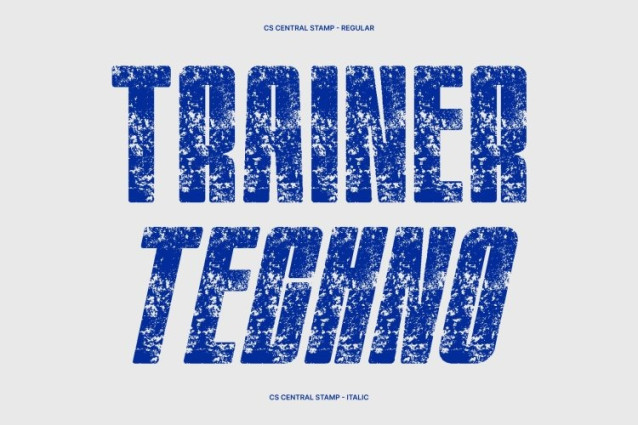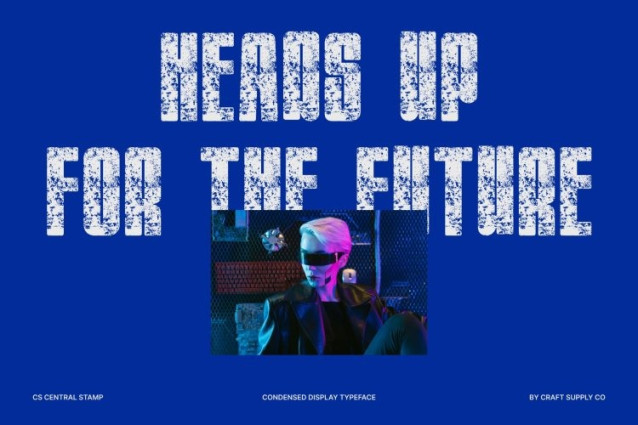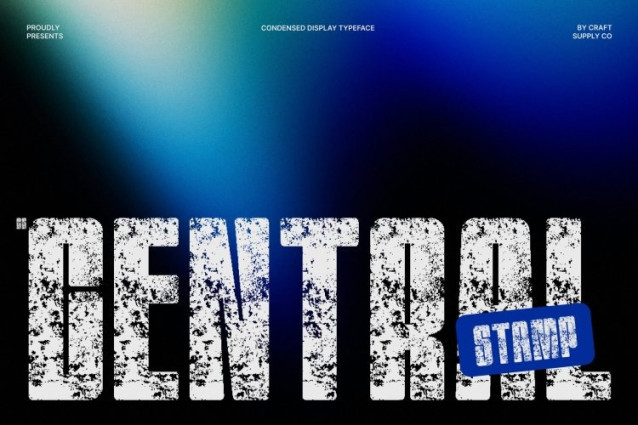
CS Central Stamp Font
CS Central Stamp Font This is a bold, condensed sans serif font designed to command attention through its compact and powerful form. Its narrow proportions allow designers to maximize space while maintaining strong visual impact, making it ideal for headlines, posters, and striking typographic compositions that demand clarity and confidence.
Modern Professionalism with Stamped Texture
Built on clean and minimalist foundations, this font delivers a modern and professional impression enhanced by a distinctive stamp effect. The textured finish introduces subtle imperfections that soften the rigid geometry, adding personality and a handcrafted feel while preserving its sharp, contemporary character.
Enhanced Strength and High Visibility
The bold weight of this font ensures exceptional visibility across both print and digital media. Combined with its condensed build and stamped surface, the font stands out effortlessly in promotional materials, branding visuals, and editorial layouts, ensuring messages remain bold, readable, and memorable.
Vintage Character for Impactful Design
With its stamped texture, this font gains a vintage edge that brings depth and authenticity to modern typography. This fusion of assertive structure and aged, artistic detail makes it perfect for branding, advertising, and graphic design projects that seek to balance strength, professionalism, and timeless visual character.